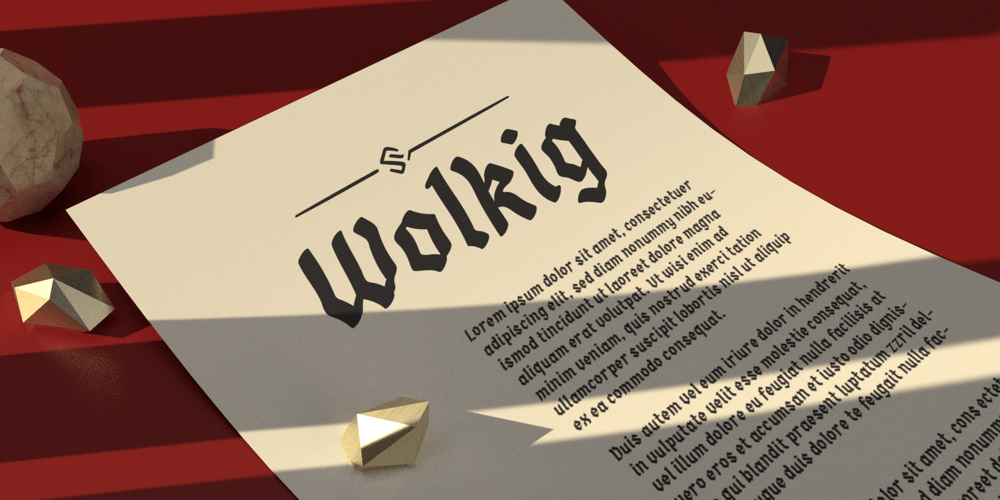
Wolkig Font Family was designed by Wahyu Eka Prasetya, Afiat Sukmaraga and published by Hati. Wolkig contains 1 styles and family package options. Wolkig, meaning “cloudy” in German, evokes the atmosphere of aged documents and handwritten letters. This typeface is perfect for projects seeking a touch of old-world charm, drawing inspiration from both Deutsch and British ink writing styles.Design Uses: Logos and Branding: Wolkig adds a touch of sophistication and heritage to logos and branding for businesses, restaurants, or products with a classic aesthetic. Packaging Design: Elevate your packaging design with Wolkig, making your product stand out on shelves and convey a sense of quality and tradition. Invitations and Stationery: Create elegant and personalized invitations, wedding stationery, or greeting cards with Wolkig’s timeless style. Posters and Flyers: Wolkig lends a unique voice to vintage-inspired posters, flyers, or advertisements. Book Covers and Publishing: Wolkig is ideal for book covers, particularly historical fiction or classic literature, adding a touch of authenticity. Why Wolkig is Unique: Authentic Blend: Wolkig seamlessly blends influences from both old Deutsch and British ink writing styles, offering a nuanced and versatile font. Timeless Appeal: Unlike trendy fonts, Wolkig’s classic character ensures it will stay relevant for years to come. Warmth and Character: The subtle imperfections inherent in the design of Wolkig add a touch of warmth and personality to your project. Font Pairings: Serif Fonts: For a classic and elegant combination, pair Wolkig with a serif font like Garamond or Playfair Display for body text. Sans-Serif Fonts: Create a touch of modern contrast by pairing Wolkig with a clean sans-serif font like Open Sans or Helvetica for headlines.